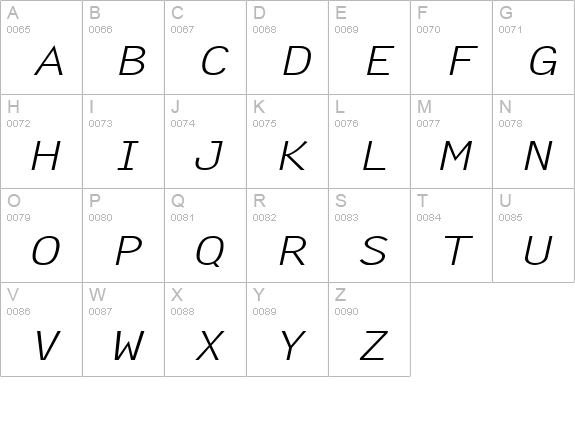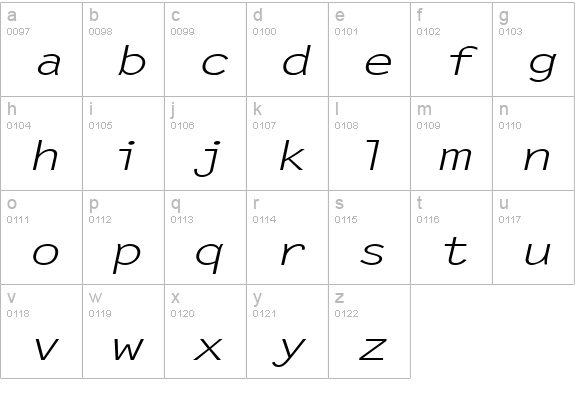
Lechter Extended Italic is a distinctive, extended-width, italic variant in the Lechter typeface family \xE2\x80\x94 well suited to design and typography projects.
Introducing the exquisite Lechter Extended Italic font, a true masterpiece of typographic design. This font effortlessly combines elegance and sophistication, making it the perfect choice for projects that require a touch of refinement. With its extended and italicized letterforms, Lechter Extended Italic font exudes a sense of grace and fluidity. Each character is meticulously crafted, showcasing delicate curves and carefully balanced weights. This attention to detail gives the font a unique personality that is both captivating and versatile. Lechter Extended Italic font is not only visually stunning, but it also offers a seamless reading experience. Its legibility is enhanced by the careful spacing between letters, ensuring that every word is effortlessly comprehensible. And the best part? Lechter Extended Italic font is available for free download at FontsMarket.com. This means that you can enjoy the beauty and functionality of this remarkable typeface without spending a penny. Whether you're a professional designer or an individual looking to add a touch of elegance to your personal projects, this font is the perfect choice. So why wait? Experience the beauty of Lechter Extended Italic font today, and elevate your designs to new heights. Download it for free at FontsMarket.com and unleash your creativity with this remarkable typographic gem.